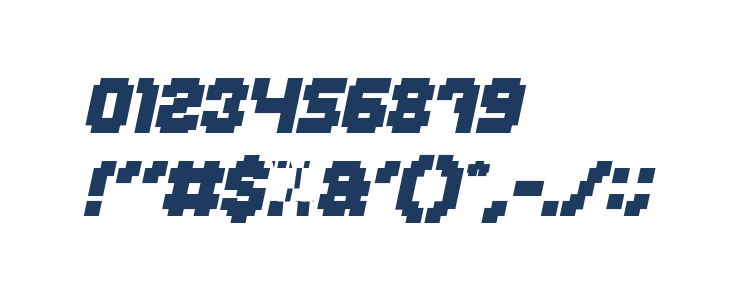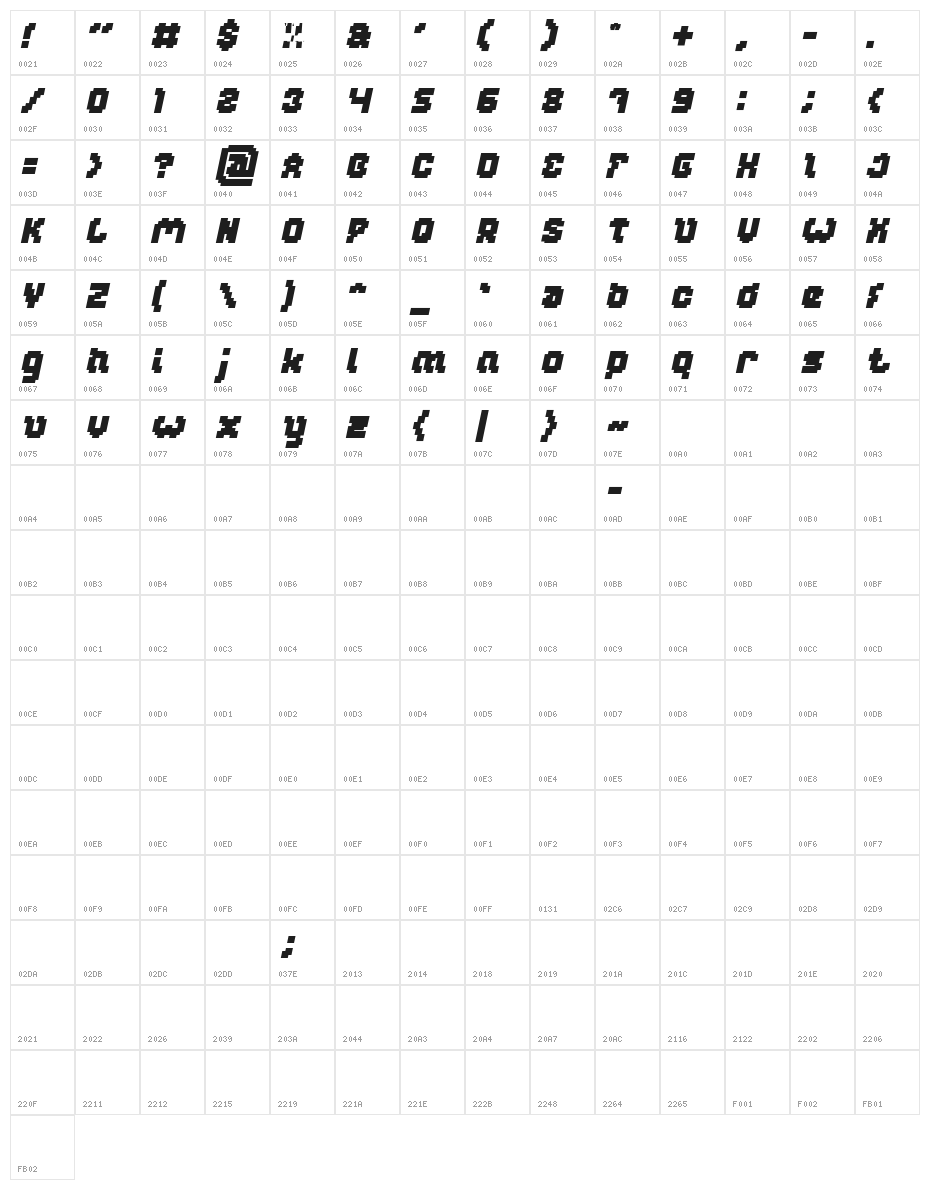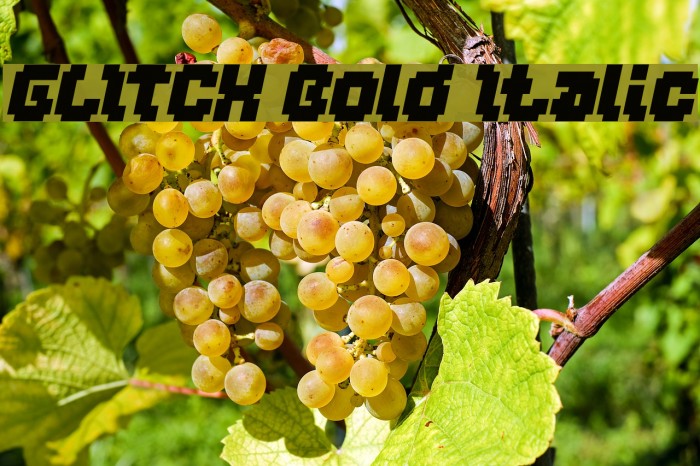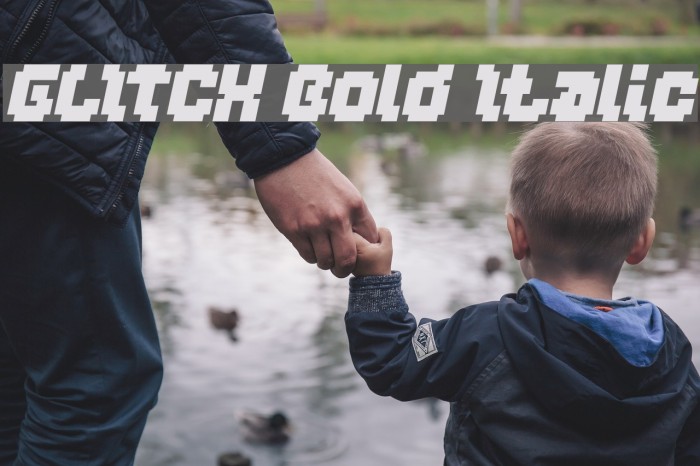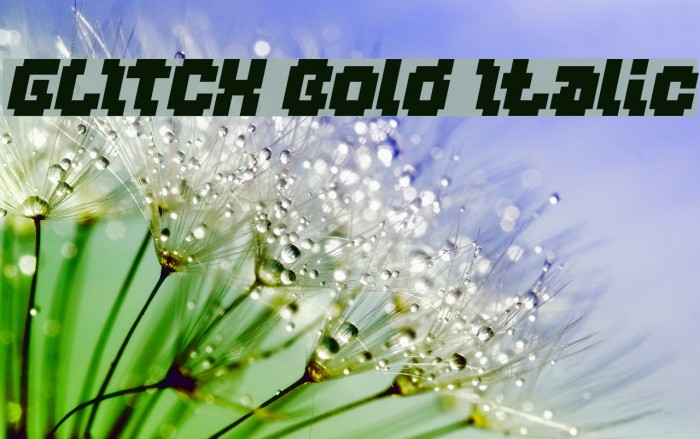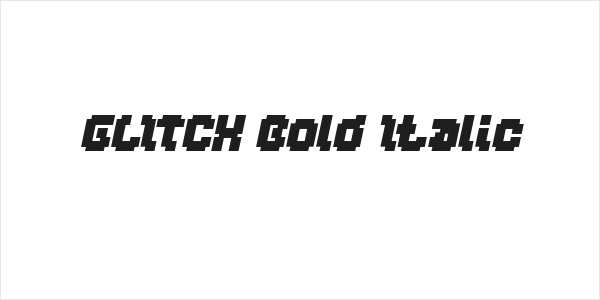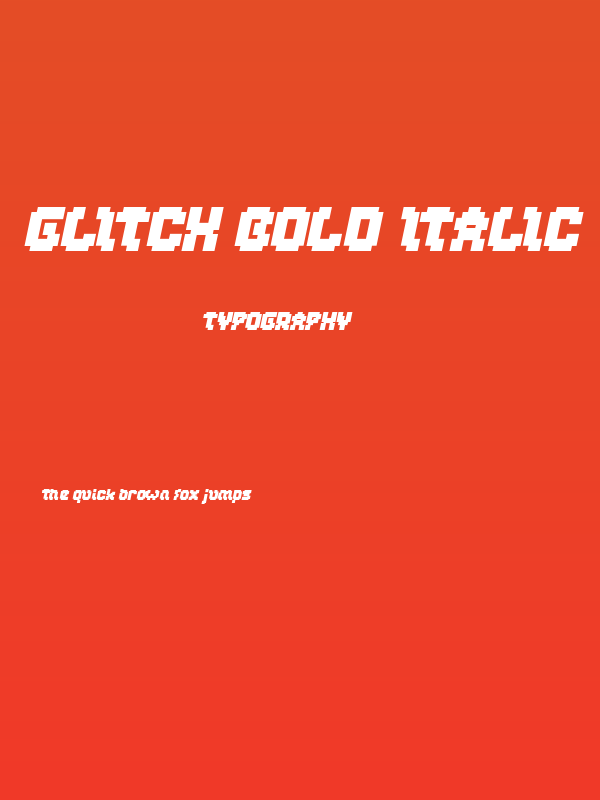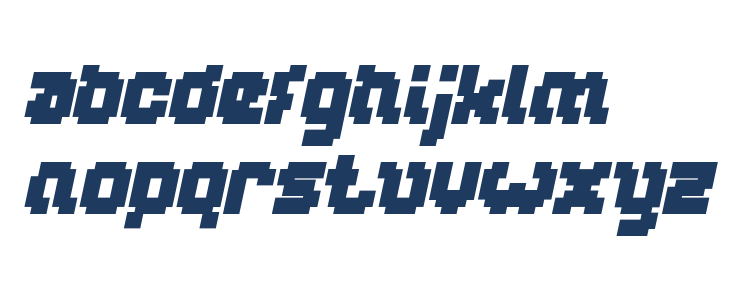
GLITCH Bold Italic Font
GLITCH Bold Italic Description
This font features a bold and italicized style with a distinct glitch effect, characterized by its pixelated and angular design. The characters are constructed with sharp edges and a blocky appearance, giving it a digital and futuristic feel. The uppercase and lowercase letters maintain a consistent style, with the same pixelated texture applied to numbers and special characters. This font's unique aesthetic makes it stand out, offering a modern twist on traditional typefaces. The boldness of the font ensures high visibility, while the italic slant adds a dynamic and energetic touch.
| Overall Style | Modern, Futuristic, Digital |
| Proposed Projects | Ideal for digital art projects, video game graphics, tech-themed posters, and futuristic branding. |